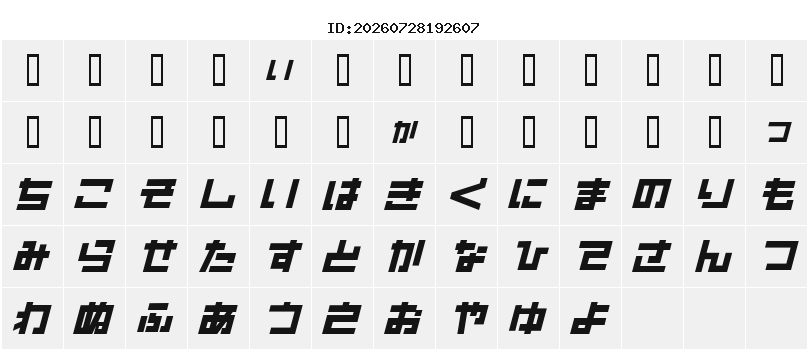
I2sunplaza Preview
• Font Name: I2sunplaza
• Full Font Name: I2sunplaza
About I2sunplaza.ttf
I2sunplaza.ttf is a modern, elegant sans-serif font designed for ultimate readability and visual harmony. Perfect for branding, headlines, web design, and print materials.